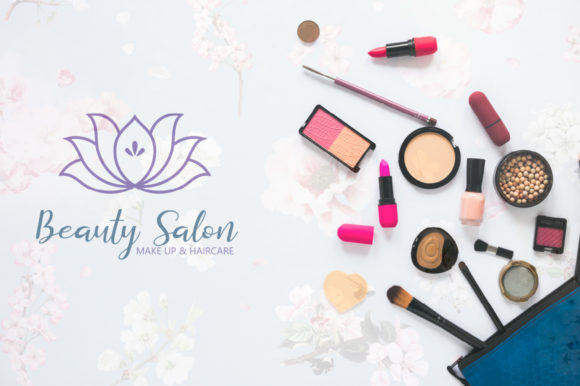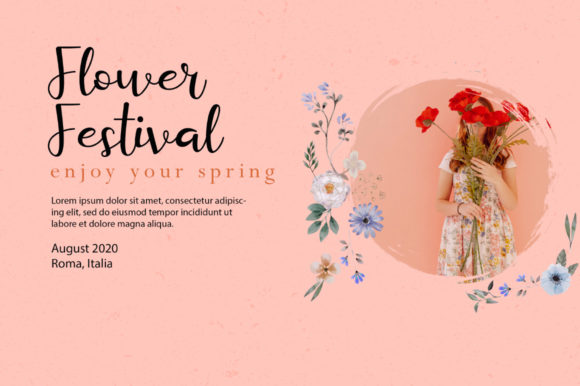
Purple Queen Font
db-ku.com - Script & Handwritten -- Purple Queen is a sweet and lovely handwritten font. Fall in love with its incredibly versatile style and use it to create gorgeous wedding invitations, beautiful stationary art, eye-catching social media posts, and much more!